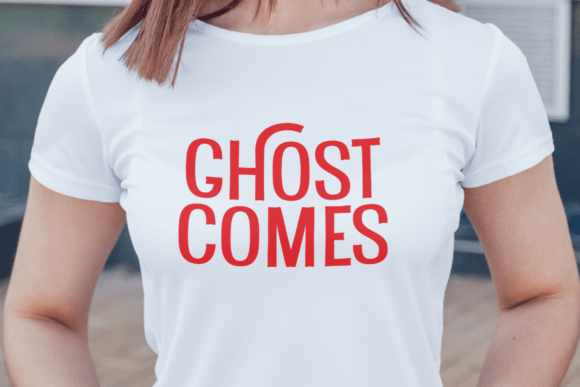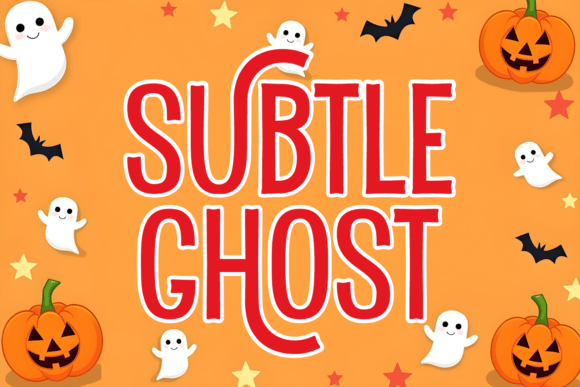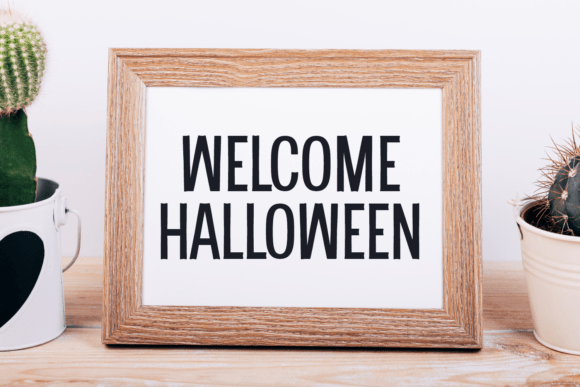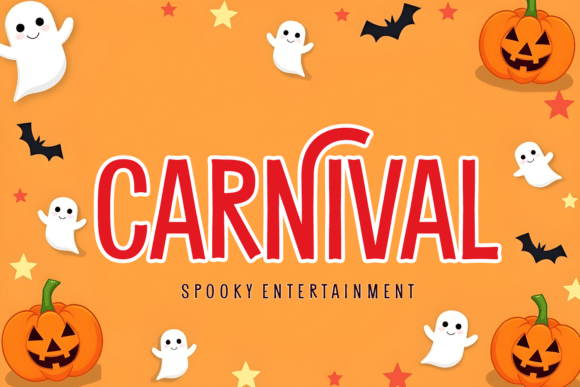
Introduction to Horror Honor Font
As you’re rummaging through your design resources, searching for that perfect font to give your Halloween project an eerie touch, you stumble upon the perfect addition – the Horror Honor Font. Its spine-chilling mystery and haunting elegance make it an instant favorite among designers looking to create a spooky atmosphere.
This high-quality font is a treasure trove of creative possibilities, from crafting the perfect Halloween invitation to adding a stylish touch to your typography work. With its versatility in uppercase ligature and wicked display, you can easily add a supernatural twist to your designs. Whether you’re working on a poster, sticker, or party invitation, the Horror Honor Font is sure to cast a spell on your audience.
Key Features of Horror Honor Font
- High-quality font design for creative projects, suitable for horror-themed artwork and designs.
- Features a unique, eerie aesthetic with intricate details, perfect for adding a touch of horror to any design project.
Honest Review: Horror Honor Font
I recently had the chance to experiment with the Horror Honor Font, a design resource that’s been gaining attention in the creative community. Overall, I found it to be a high-quality addition to my toolkit.
- High-Quality: The font itself is well-crafted and visually appealing, with a unique aesthetic that’s sure to stand out in your creative project.
- Limited Customization: While the font itself is high-quality, I found that there were limited options for customization, which might be a drawback for designers who like to experiment with different styles.
- Not Suitable for All Projects: Due to its dark, ominous tone, the Horror Honor Font might not be the best fit for all types of creative projects.
Overall, I’m impressed with the Horror Honor Font, and I think it’s a great addition to any designer’s toolkit. However, be aware of its limitations and consider your project’s needs before incorporating it into your design.
Tips for Getting the Most Out of Horror Honor Font
Use the Horror Honor Font on a transparent background to create a spooky or eerie effect. Experiment with different font sizes and colors to add depth and dimension to your design. You can also pair the Horror Honor Font with other high-quality design resources to create a unique and creative project.
The Horror Honor Font is ideal for horror-themed projects, such as movie posters, book covers, or Halloween decorations. It’s also a great resource for designers who want to add a touch of darkness or mystery to their designs. With its high-quality design and free download, the Horror Honor Font is a must-have resource for any designer.